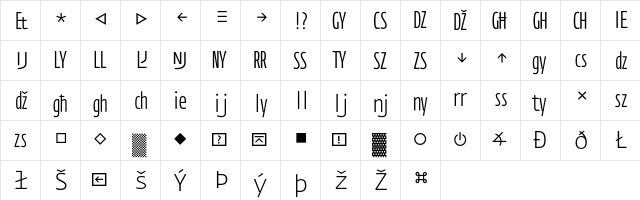
Fedra Mono Light Expert
Design Context for Fedra Mono Typeface
Fedra Mono uses fixed-width spacing throughout, giving it the structured, systematic character associated with coding environments and technical documentation. The delicate stroke weight brings airiness and refinement to layouts.